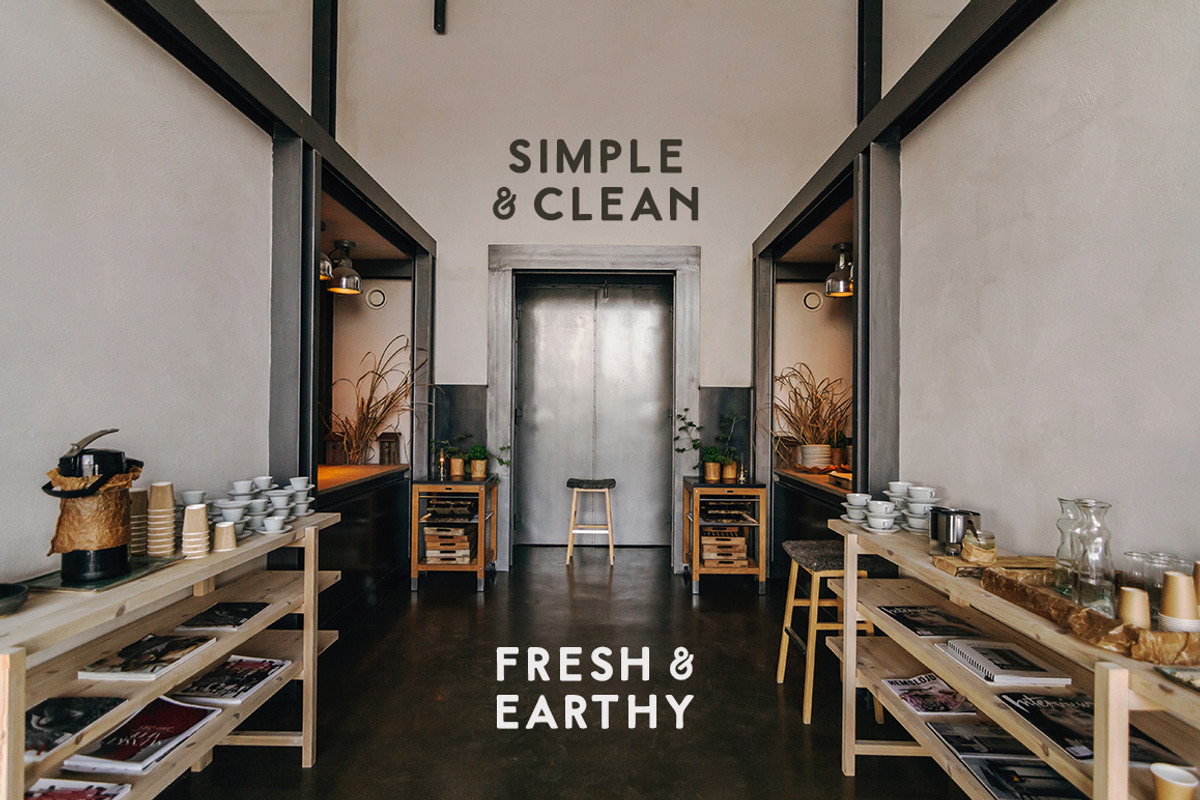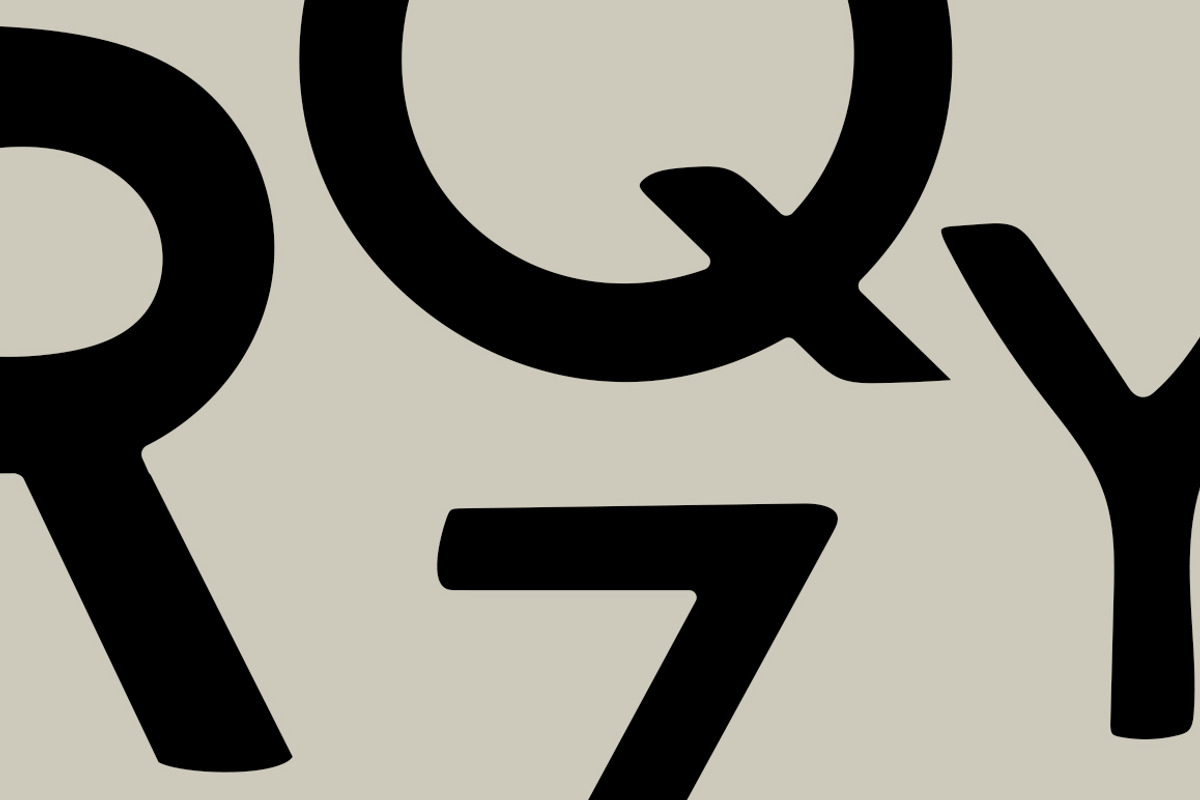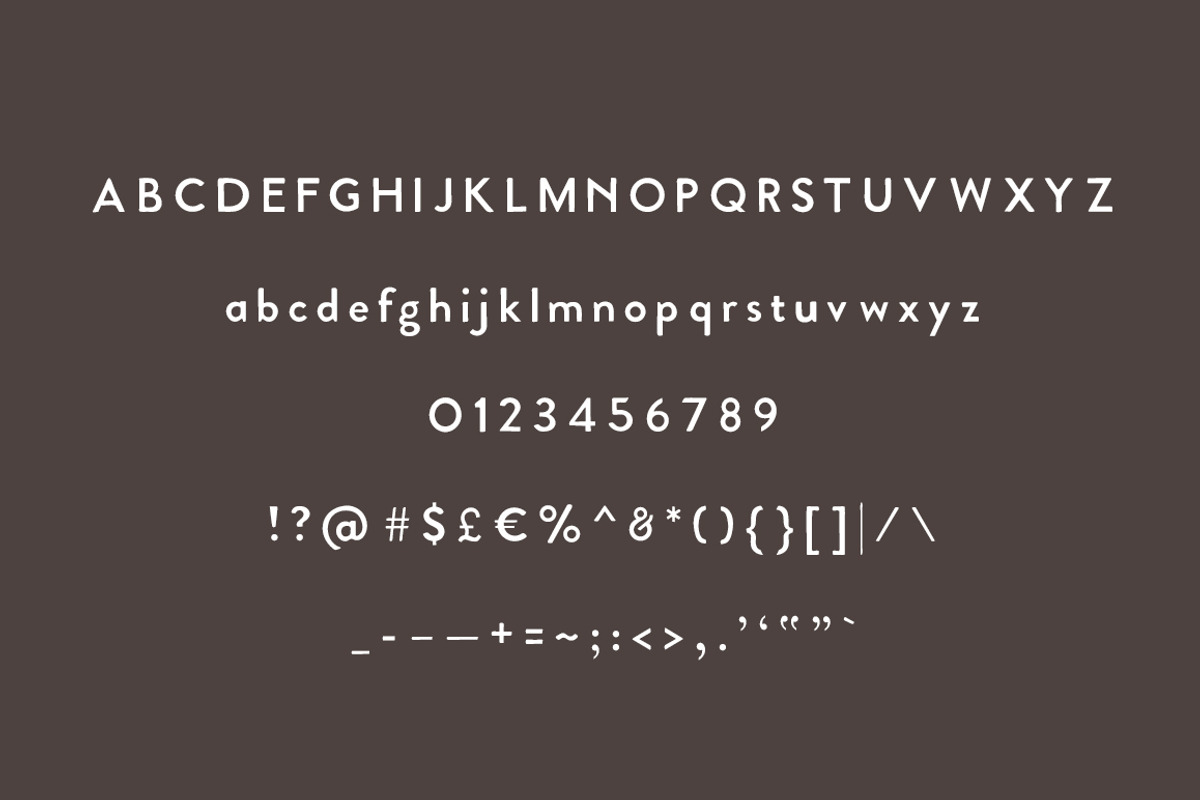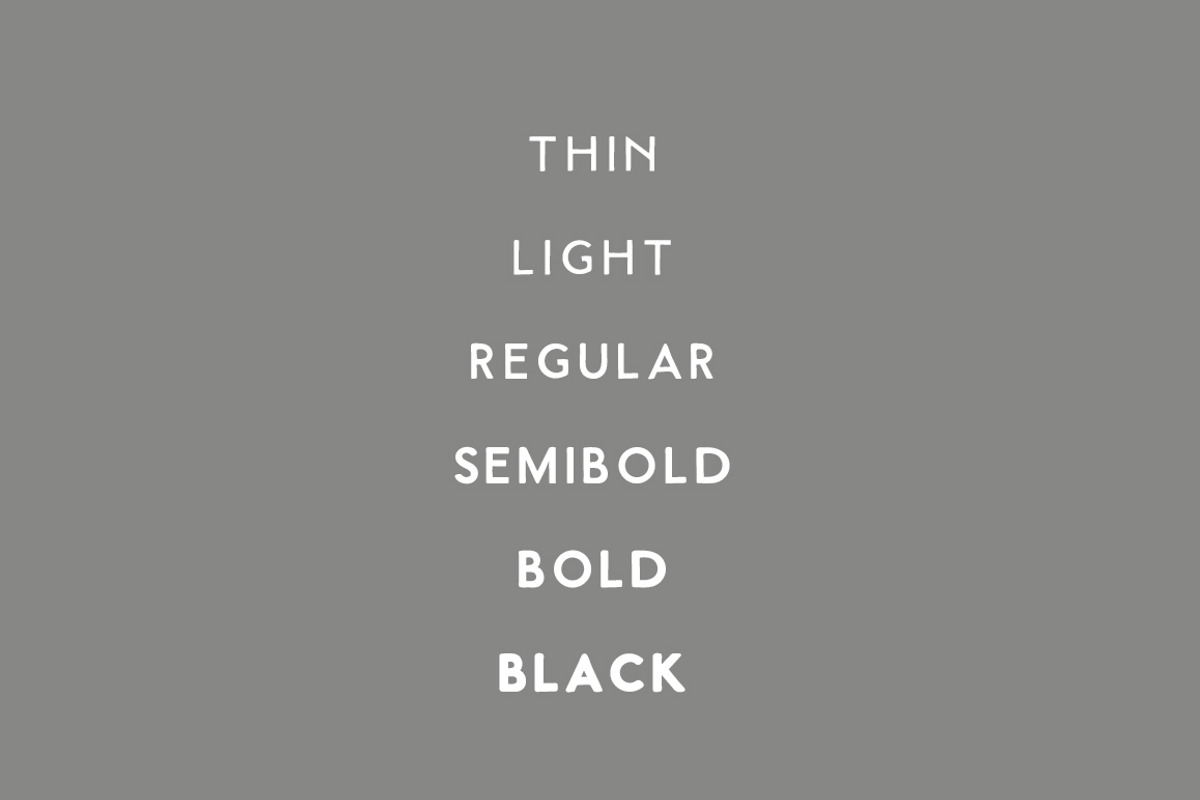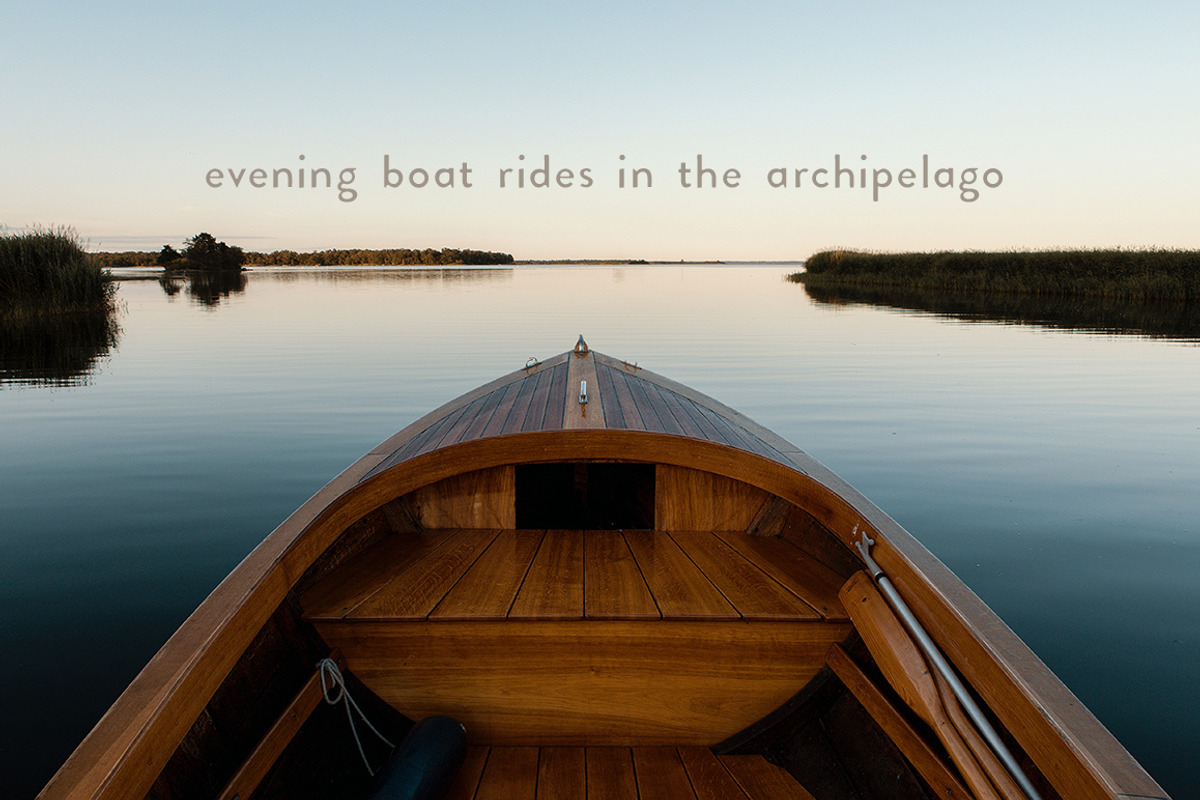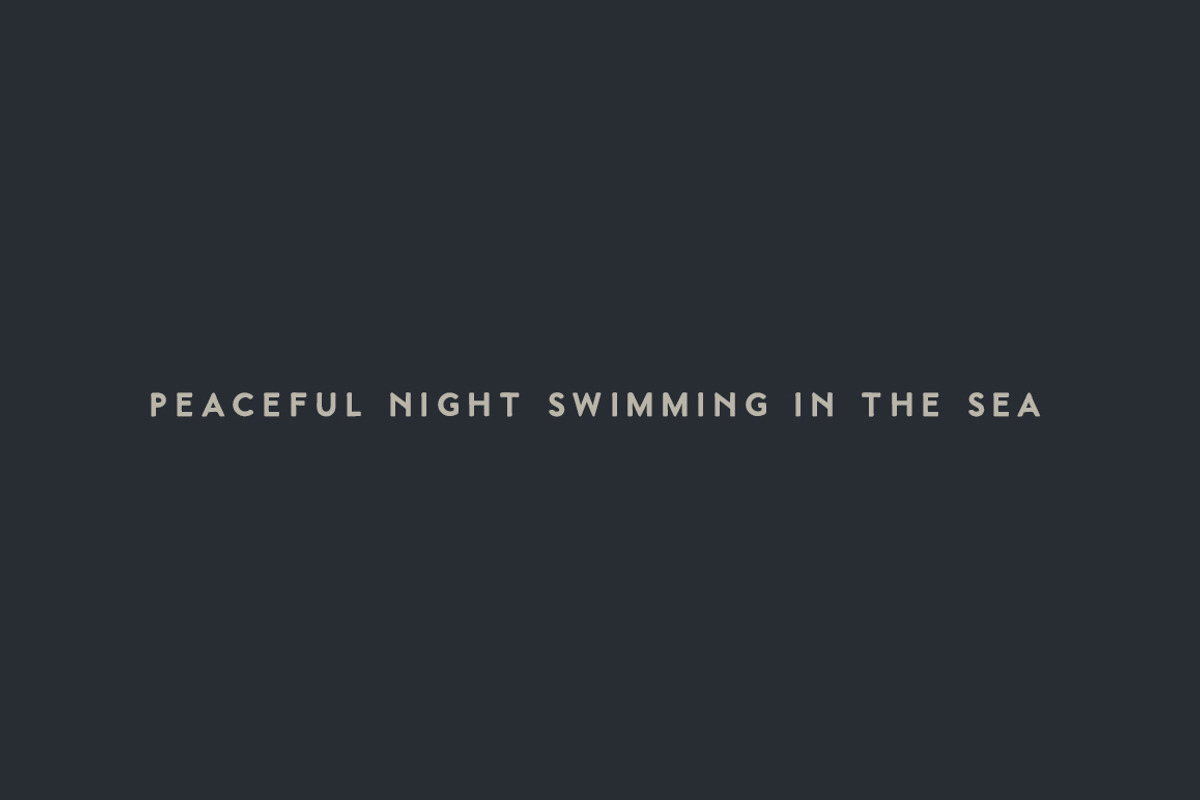
Sandarna: A Hand-Lettered Font
Sandarna was inspired by a trip to Sweden and a nighttime dip in the Baltic Sea. The font creates a timeless feel while tipping its cap to the past with its vintage-inspired lines. From afar, the crisp lines will fool you but zoom in and you'll see a nice organic wave within the letters. With its simple feel and touch of organic, this font is meant to be versatile. It is perfect for all projects that need anything from a naturally bold or a minimalistic thin style.
Uppercase alphabet A-Z
Lowercase alphabet a-z
- Sandarna Thin
- Sandarna Light
- Sandarna Regular
- Sandarna Semibold
- Sandarna Bold
- Sandarna Black